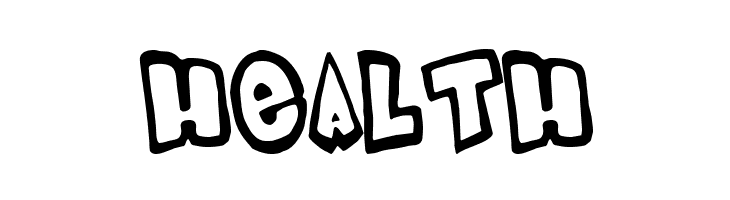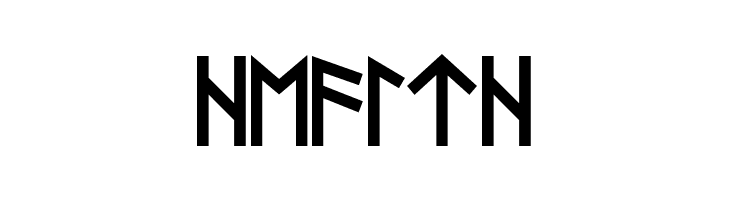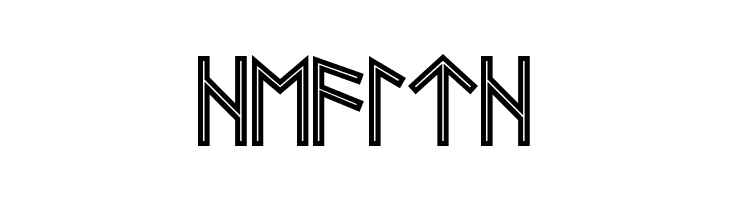
( Fonts by Astigmatic One Eye Typographic Institute - Brian J. Bonislawsky - astigmatic.com )
A festive, decorative font with characters inside Christmas ornaments, ideal for holiday themes.
( Fonts by Phillip Cavette )
A bold, playful font with a hand-drawn, cartoon-like style.
( Fonts by Astigmatic One Eye Typographic Institute - Brian J. Bonislawsky - astigmatic.com )
A distressed, grungy font with a rugged, eroded appearance.
( Fonts by Astigmatic One Eye Typographic Institute - Brian J. Bonislawsky - astigmatic.com )
A bold, angular font inspired by ancient runic alphabets.
( Fonts by Astigmatic One Eye Typographic Institute - Brian J. Bonislawsky - astigmatic.com )
A bold, angular font inspired by ancient runic alphabets with an inline design.